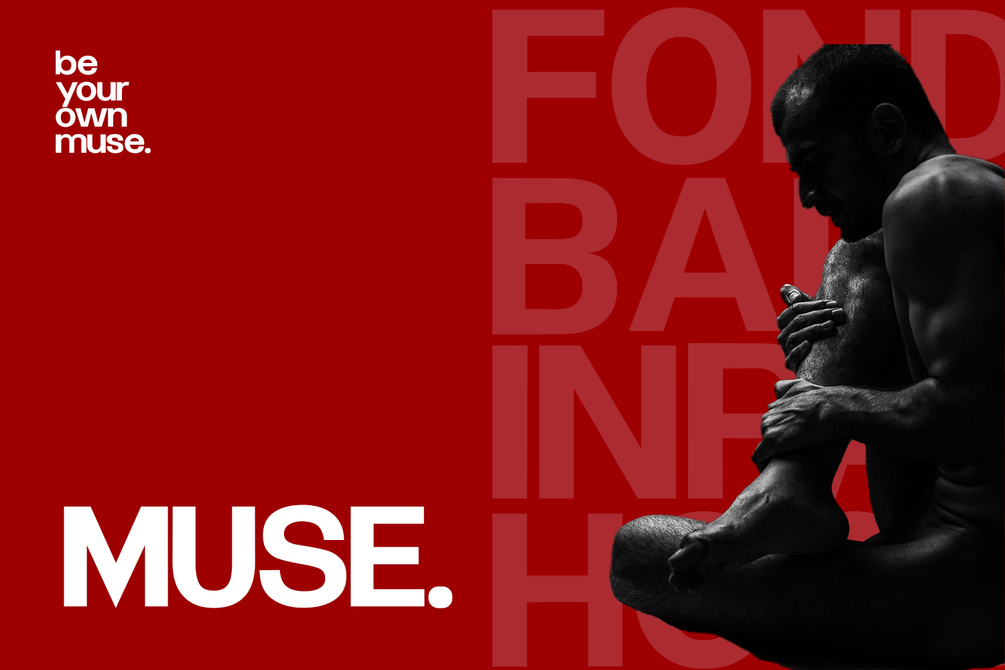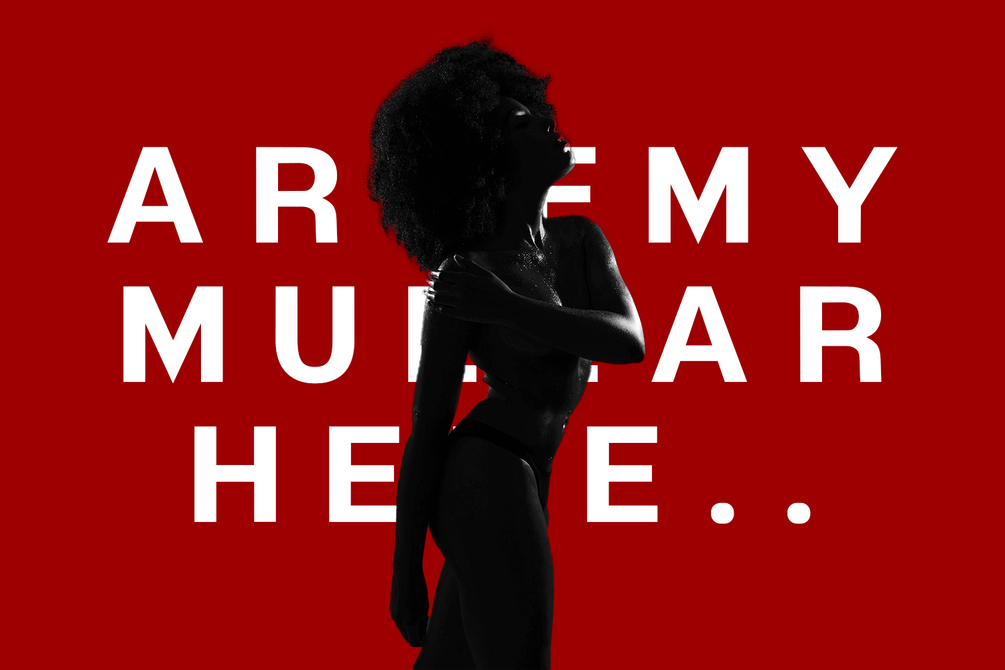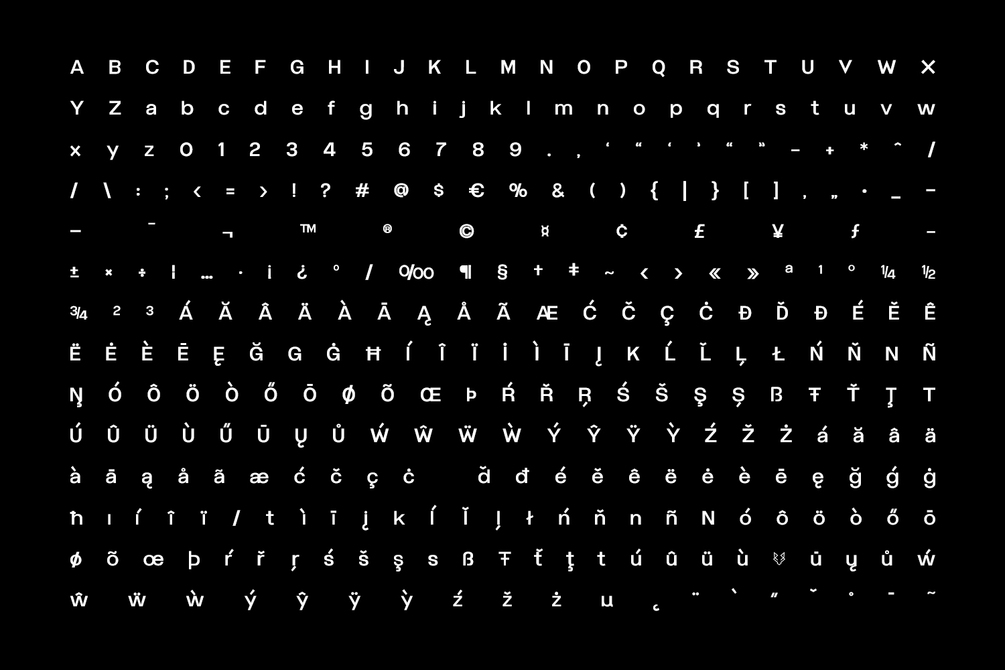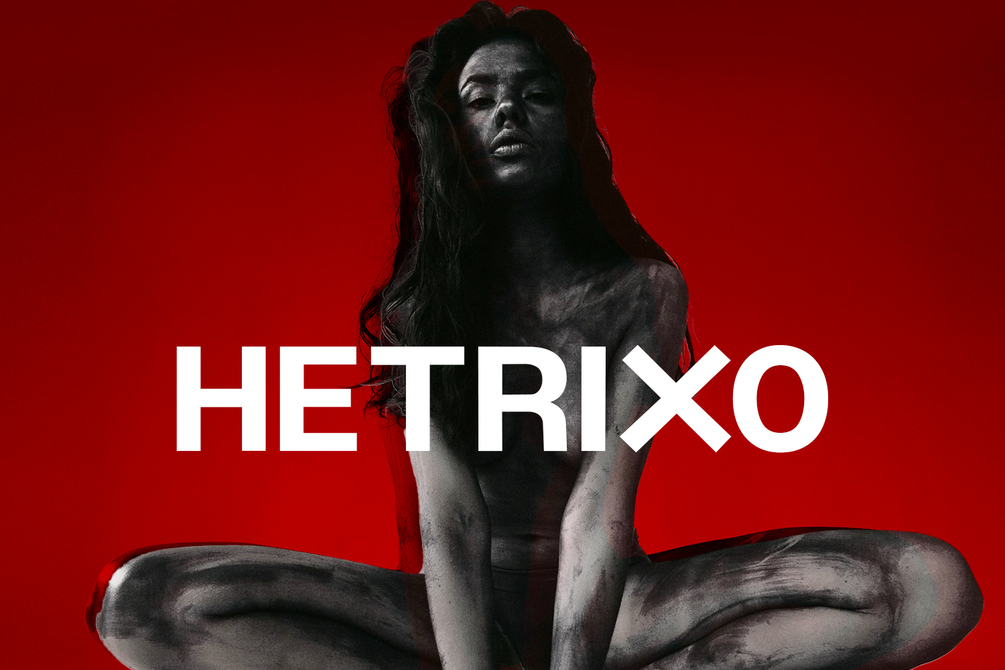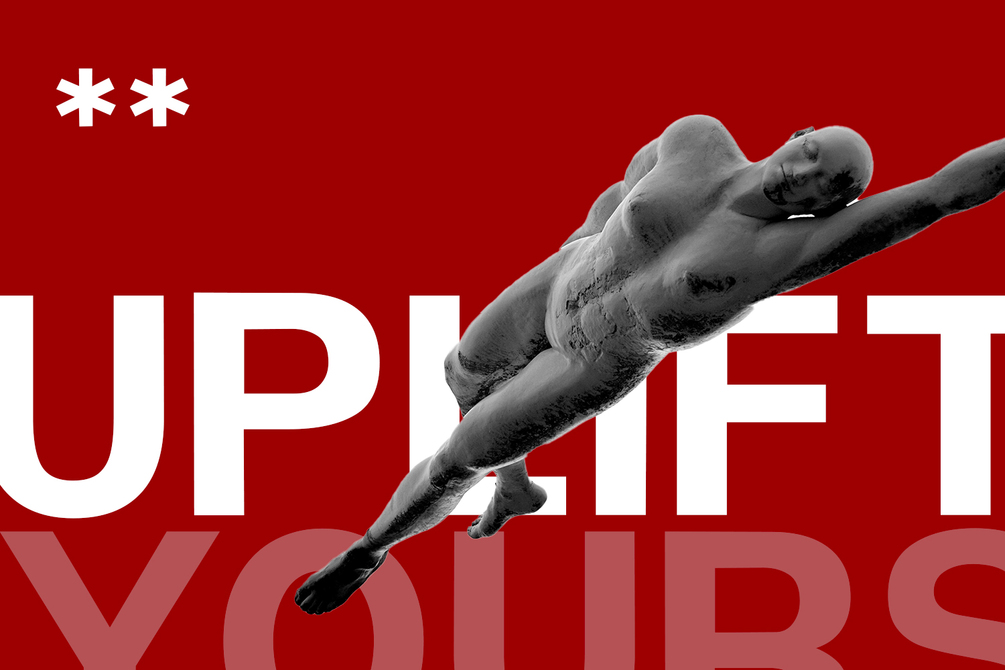
Hetrixo Display Typeface
Introducing Hetrixo Display, a meticulously crafted modern sans-serif typeface perfect for a wide range of design projects. With 05 versatile weights, Hetrixo excels in creating striking headlines, captivating posters, and sophisticated branding materials. Its clean lines and contemporary style make it an ideal choice for magazine covers, logo designs, paragraph texts and more.